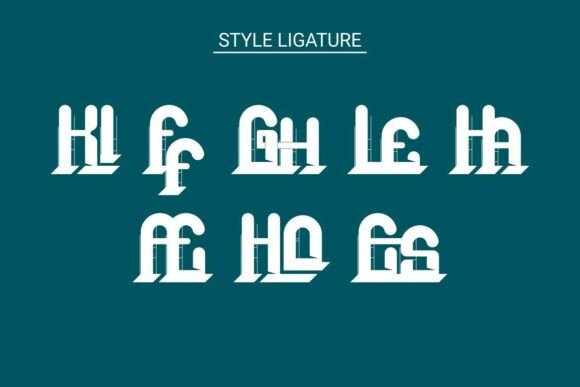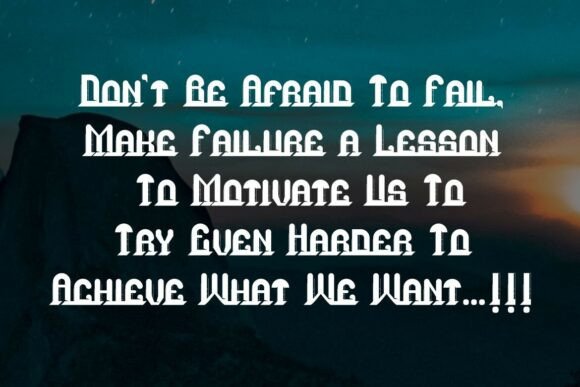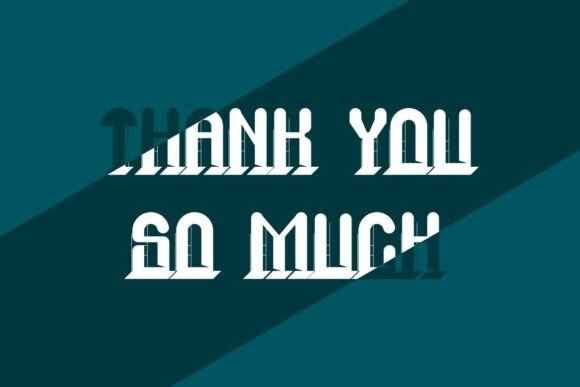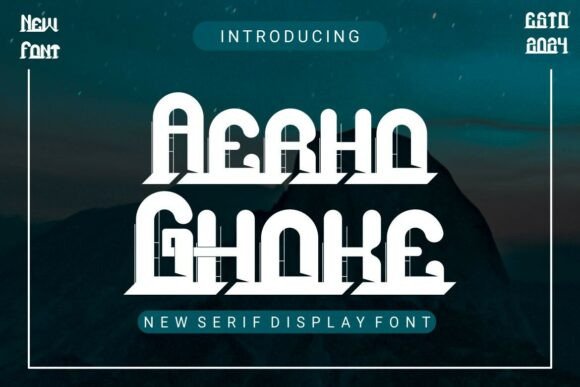
Introducing Aerho Ghoke Font: The Ultimate Serif Display Font for Bold Architectural Statements
In the world of typography, a new star has emerged: Aerho Ghoke, a serif display font that redefines the boundaries of visual storytelling. Designed to make a lasting impact, Aerho Ghoke is the perfect choice for designers seeking to create cinematic posters, futuristic branding, and luxury editorial headlines that command attention. With its unique blend of geometric structures, sharp angles, and innovative serif details, this font is poised to revolutionize the way we approach high-impact design.
Uncompromising Presence: The Aerho Ghoke Typeface
Aerho Ghoke’s distinct character forms are built on a foundation of historical serif traditions, reimagined with a cutting-edge, avant-garde aesthetic. The result is a font that exudes modernity and sophistication, perfect for tech-focused logos, high-fashion magazine covers, and bold architectural statements. Its robust character forms make it an excellent anchor for any creative project, providing a solid and sophisticated identity that demands attention.
Geometric Structures and Dramatic Angles
One of the standout features of Aerho Ghoke is its use of unique, geometric structures and dramatic, sharp angles. These elements work in harmony to create a sense of depth and dimensionality, drawing the viewer’s eye and holding their attention. The font’s complex, industrial geometry is a perfect match for minimalist layouts, allowing its intricate details to shine and take center stage.
Perfect for High-Impact Visual Storytelling
Aerho Ghoke is specifically designed for high-impact visual storytelling, making it the ultimate choice for designers working on cinematic posters, futuristic branding, and luxury editorial headlines. Its uncompromising presence and innovative serif details ensure that any creative project stands out from the crowd, leaving a lasting impression on the viewer.
Pairing Aerho Ghoke with Minimalist Layouts
To truly showcase the font’s complex, industrial geometry, designers can pair Aerho Ghoke with minimalist layouts. This approach allows the font’s intricate details to take center stage, creating a visually stunning contrast between the font’s bold character forms and the simplicity of the layout. The result is a sophisticated and modern design that exudes confidence and style.
Applications for Aerho Ghoke
Aerho Ghoke’s versatility makes it suitable for a wide range of design applications, including:
• Cinematic posters and movie titles
• Futuristic branding and logos
• Luxury editorial headlines and magazine covers
• Tech-focused logos and marketing materials
• High-fashion branding and advertising
In conclusion, Aerho Ghoke is a game-changing serif display font that redefines the boundaries of high-impact visual storytelling. With its unique blend of geometric structures, sharp angles, and innovative serif details, this font is perfect for designers seeking to create bold architectural statements, cinematic posters, and luxury editorial headlines. Its robust character forms, PUA encoding, and versatility make it an excellent choice for any creative project. Make a statement with Aerho Ghoke and take your design to the next level.